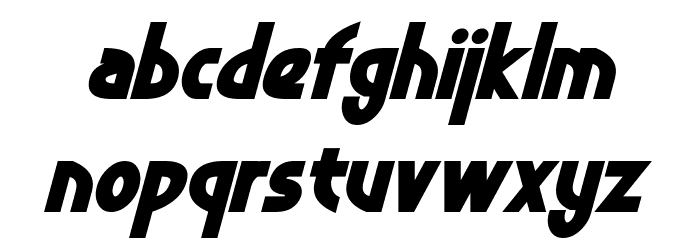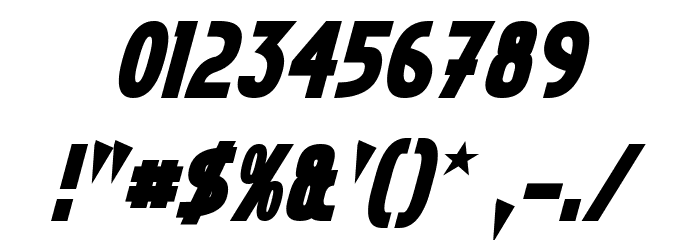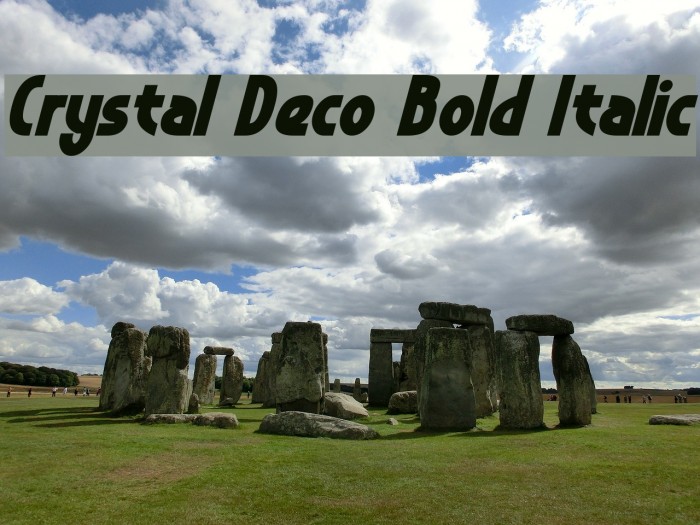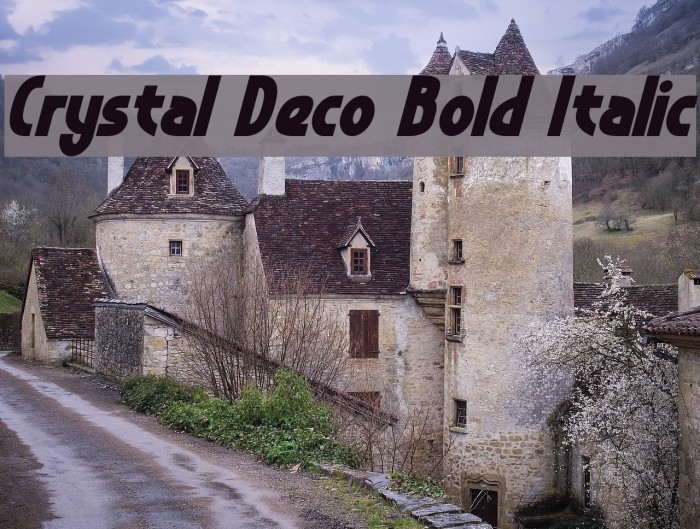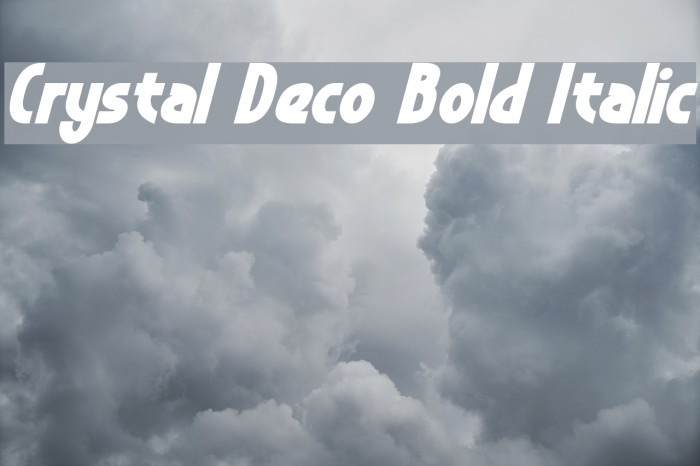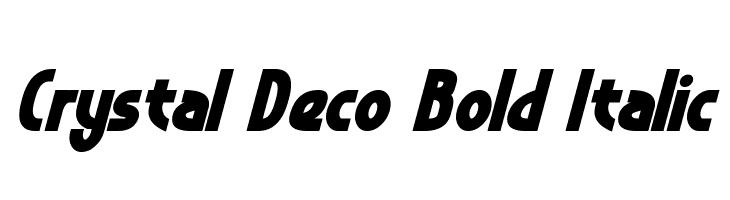
Crystal Deco Bold Italic Font
This font features a bold and italicized style with a distinct geometric flair. The characters are sharply angled, giving them a dynamic and energetic appearance. The uppercase letters are particularly striking, with a forward-leaning stance that suggests movement and modernity. The lowercase letters maintain the same angular design, ensuring consistency across the typeface. Numbers and special characters are designed with the same boldness and slant, making them highly legible and visually impactful. This font is ideal for projects that require a strong, contemporary look.
A bold, italicized font with geometric angles and a modern, dynamic style.
- Proposed Projects: Ideal for branding, posters, headlines, and any design that needs a bold, modern touch.